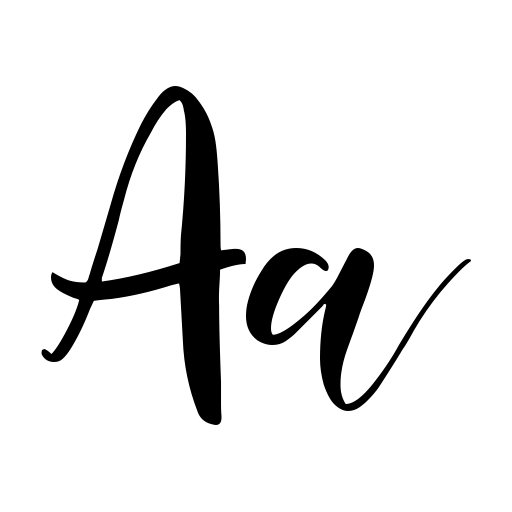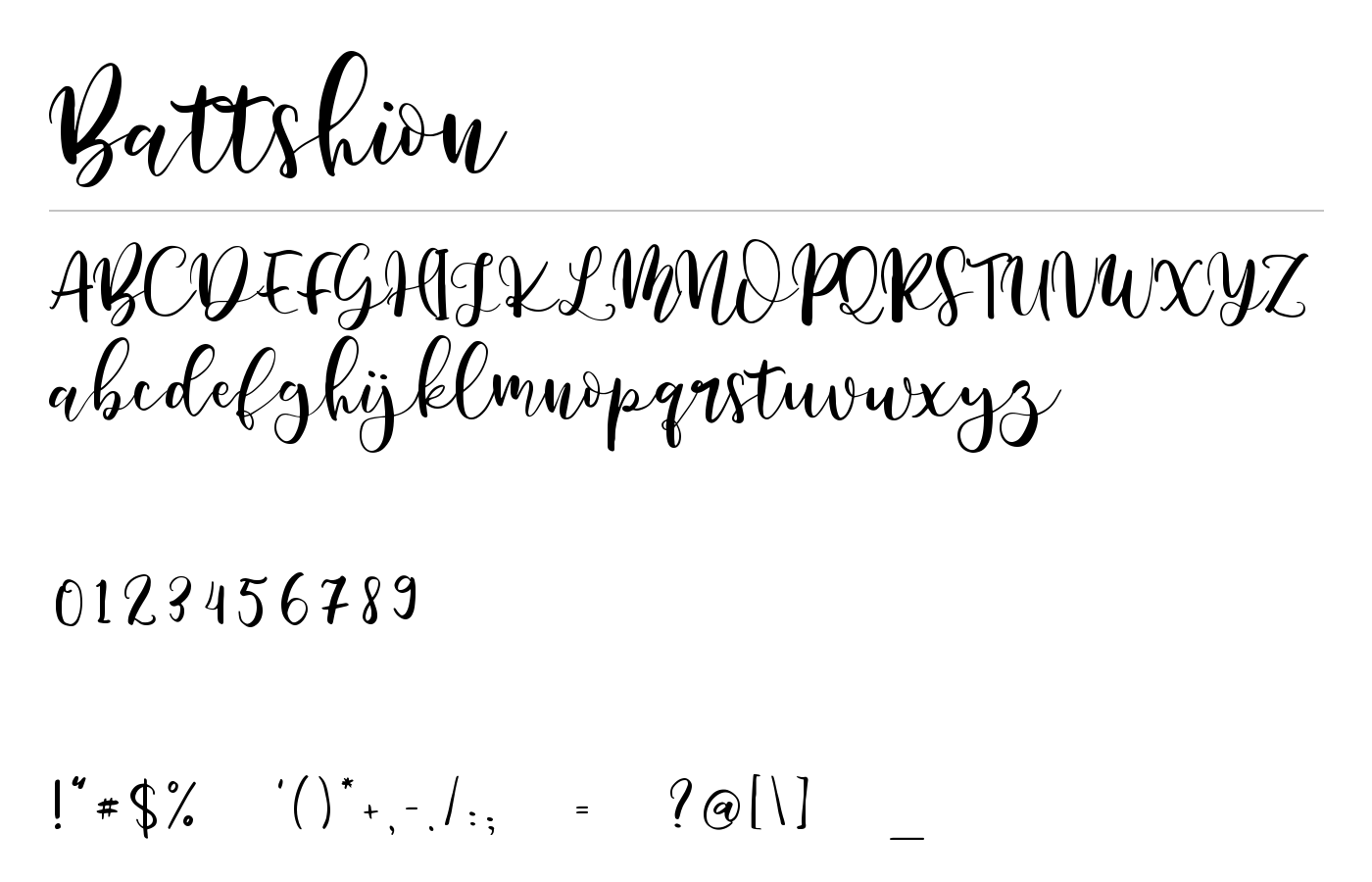
Battshion is a lively script font with elegant, flowing strokes that create a handcrafted, artistic feel. Its smooth curves and varying stroke widths give it a charming, personal touch, making it perfect for invitations, branding, and creative projects aiming for a warm, stylish, and approachable look. This font works best in decorative contexts where a friendly yet refined vibe is desired.
Battshion Font
About Battshion Font
| Font family | Battshion Font |
| Designer | TJ creativeshop |